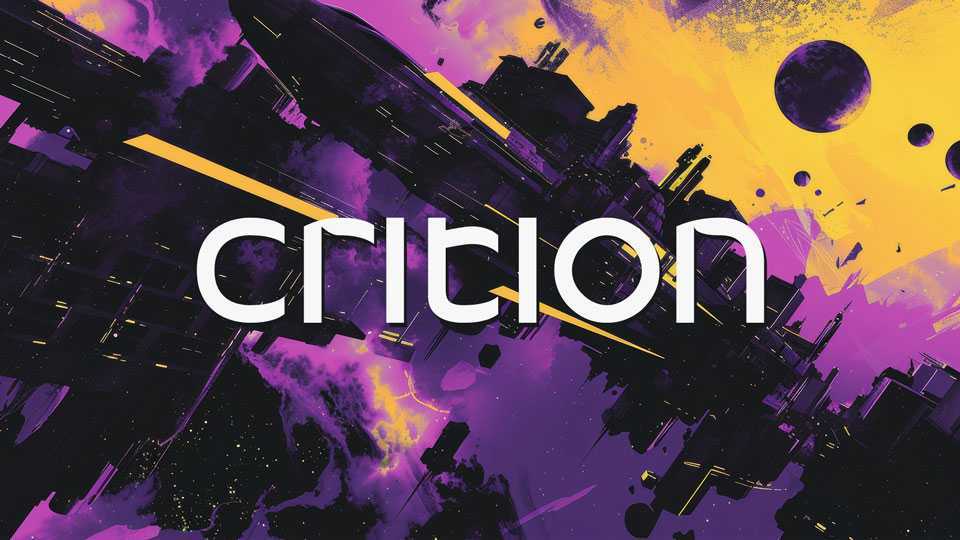
Download Crition font, a modern, equal-height typeface featuring subtle ink traps and a less case-sensitive design. It consistent letter height across uppercase and lowercase characters creates a streamlined look